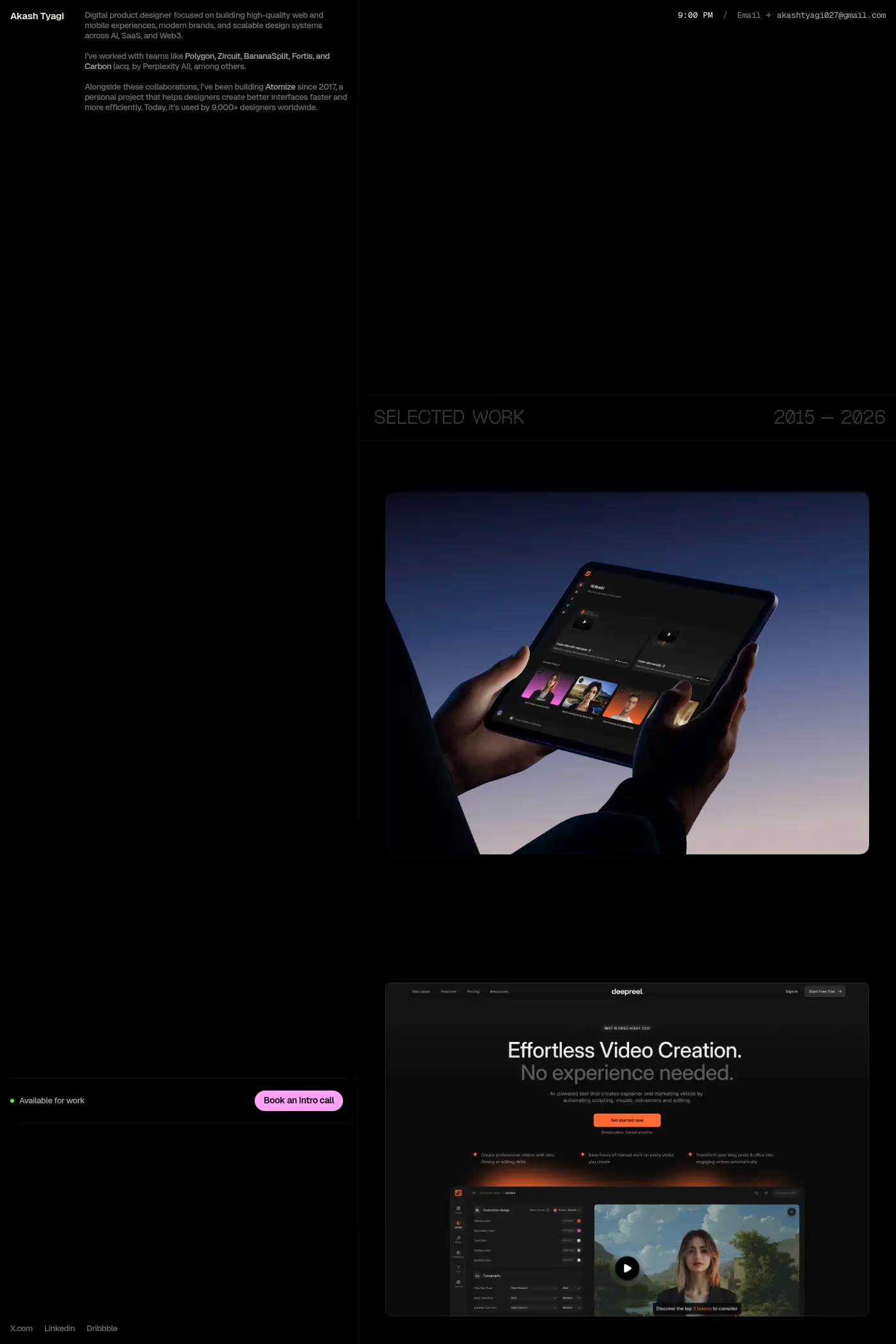
Geist Pixel is a display typeface from Vercel.
A1 features 1 website using Geist Pixel. It leans towards Dark, Minimal, and Sans-serif design styles, and it’s most often built with Framer.